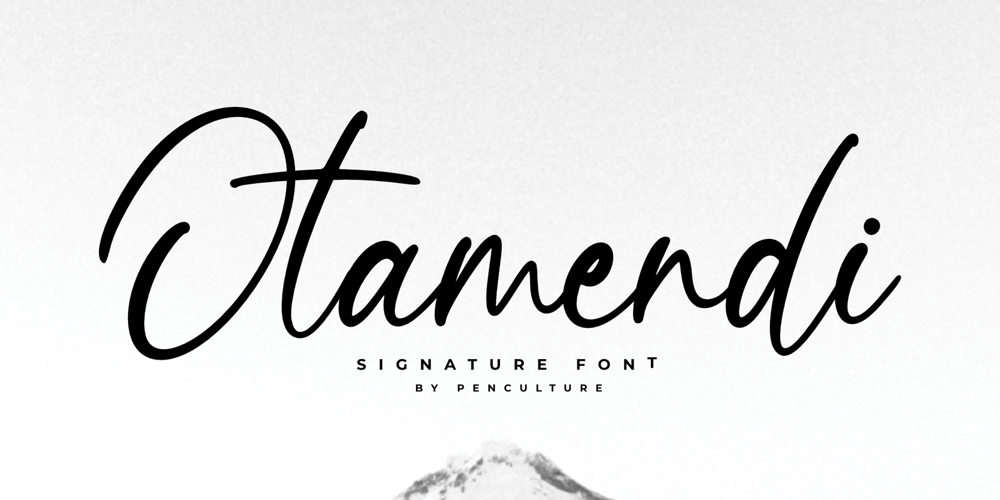
Otamendi Font Family was designed by Revo Farsiky and published by Pen Culture. Otamendi contains 1 styles and family package options. Proudly present “Otamendi Signature Font”Otamendi is beautiful signature font which has a beautiful and natural arch shape, this font is very suitable for various types, such as logos / brands, posters, magazines, Instagram templates, and many more.I really hope you enjoy it – please do let me know what you think, comments & likes are always hugely welcomed and appreciated. More importantly, please don’t hesitate to drop me a message if you have any issues or queries.Guides to access all alternates glyphs : http://adobe.ly/1m1fn4YPlease fell free to contact me if you have any questionThank you